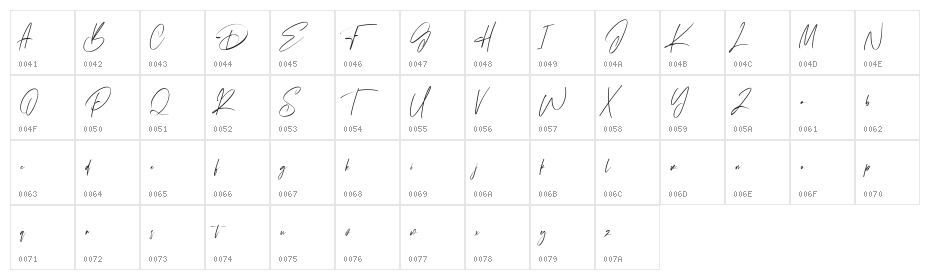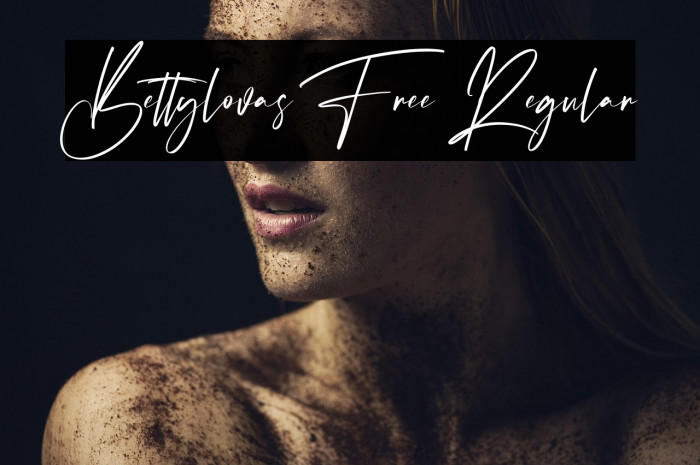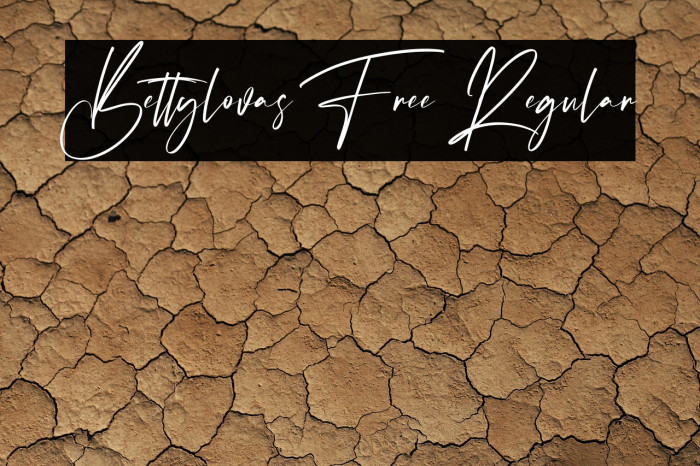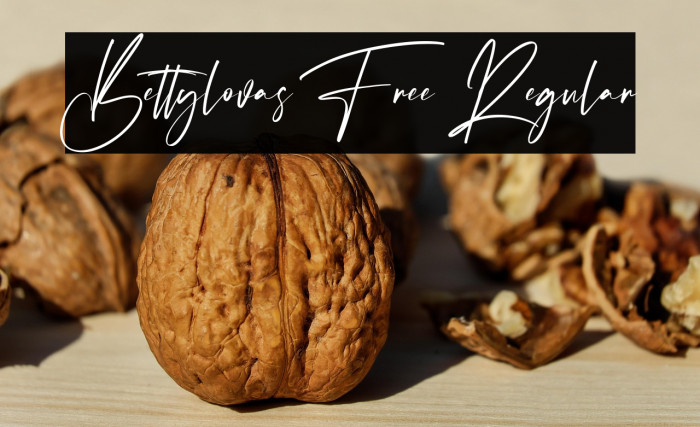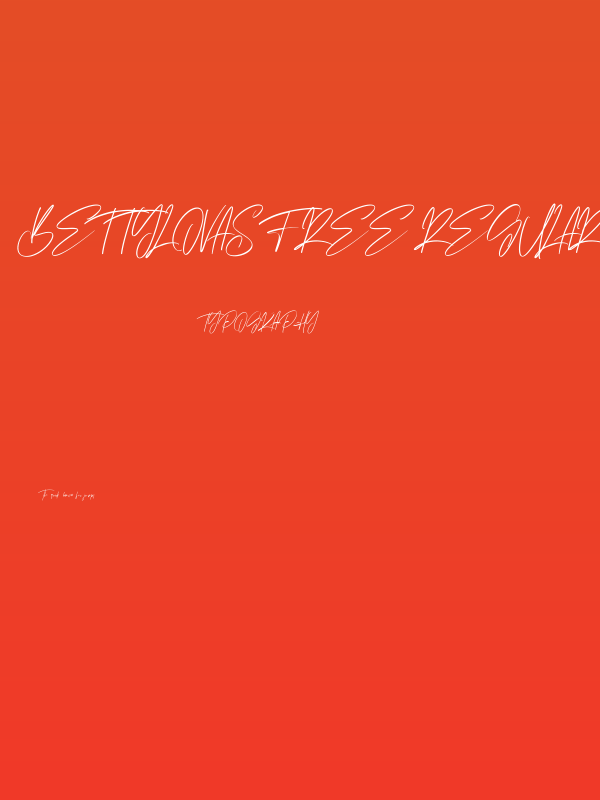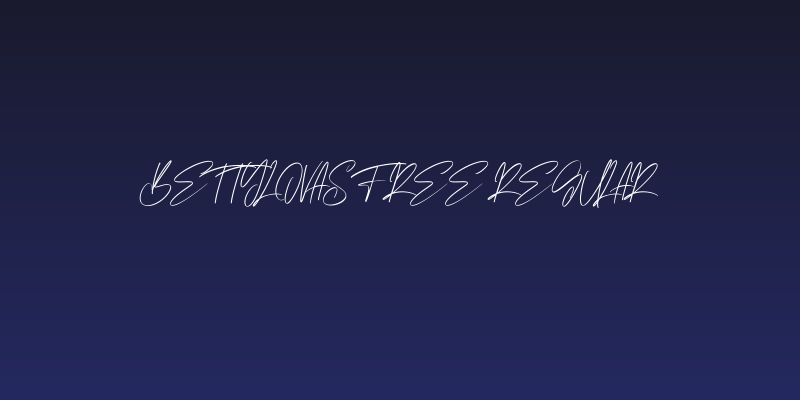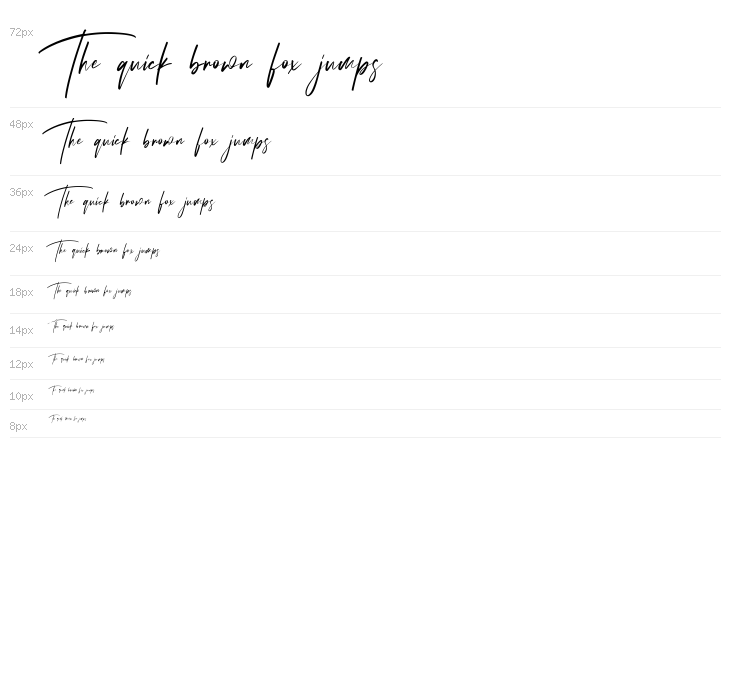
Bettylovas Free Regular Font
Bettylovas Free Regular Description
This font features a flowing, cursive style with elegant, elongated strokes that create a sense of movement and grace. The uppercase letters are bold and sweeping, while the lowercase letters maintain a delicate, handwritten appearance. The overall design is both sophisticated and approachable, making it suitable for a variety of creative projects. The characters are well-spaced, ensuring readability despite the intricate design. The font's unique style is perfect for adding a personal touch to any design, whether it be for invitations, branding, or artistic projects.